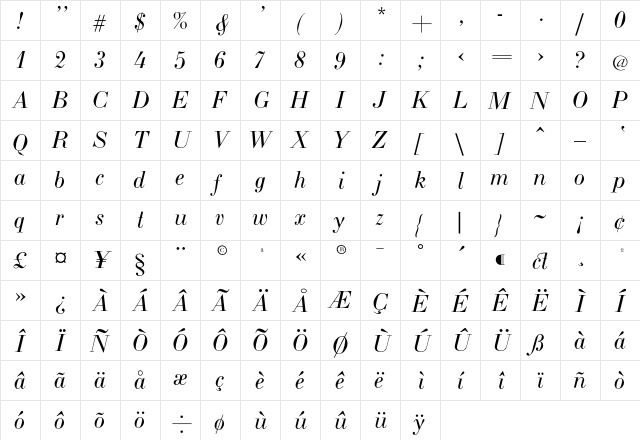
BodoniZL-Italic Regular
Design Context for BodoniZL-Italic Typeface
BodoniZL-Italic is a composed and adaptable typeface that performs quietly and consistently across a wide range of design contexts. The slanted form adds forward momentum and visual energy.
Pro Tip: Use BodoniZL-Italic for emphasis, pull quotes, and subheadings where its slanted energy can add rhythm to the layout.